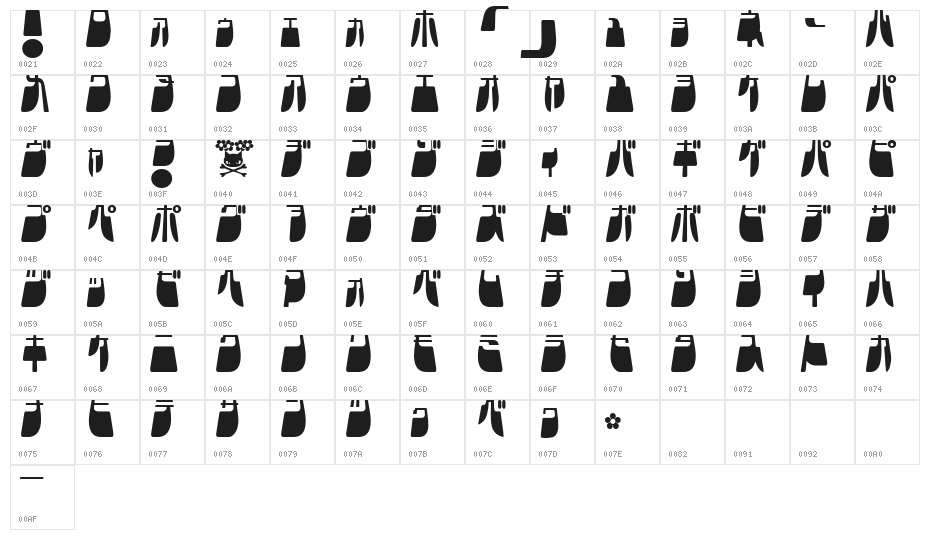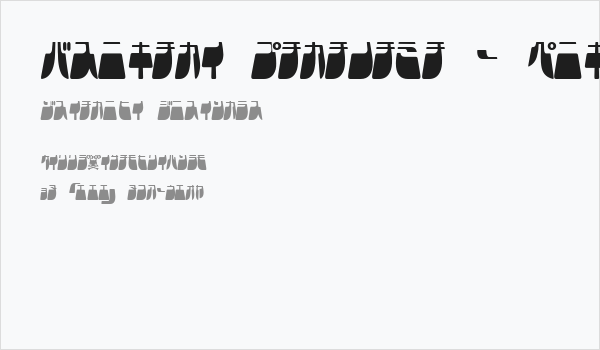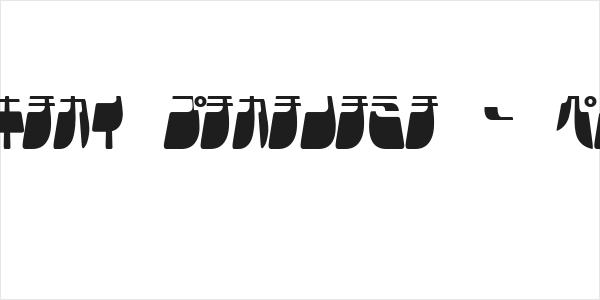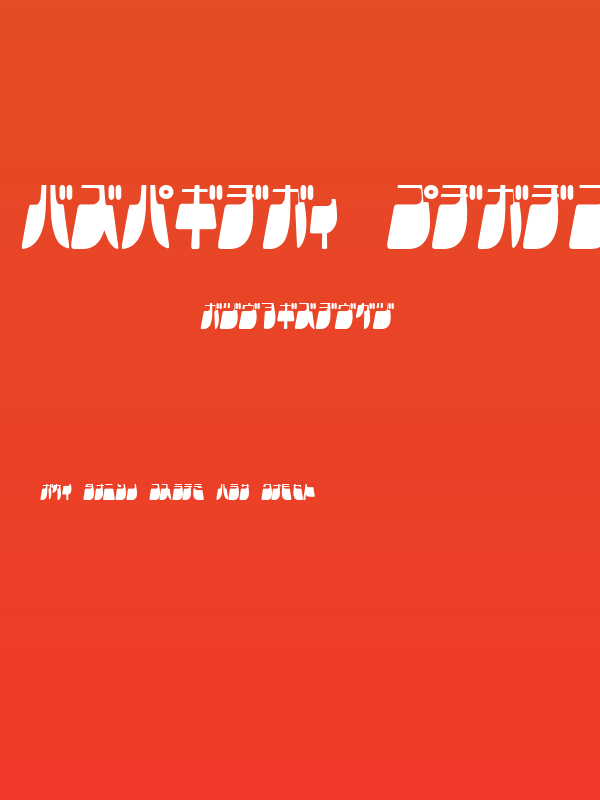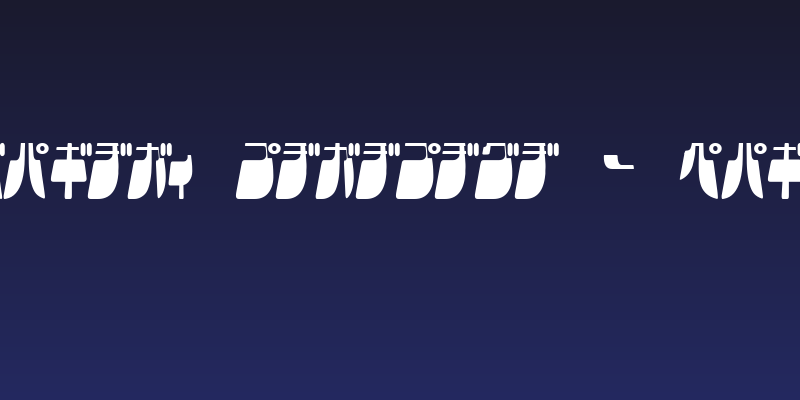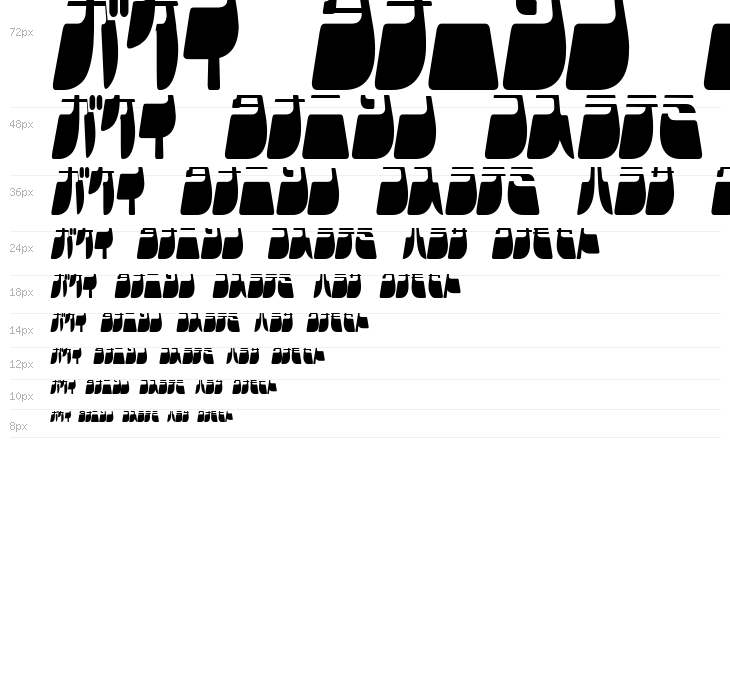
Frigate Katakana - Light Font
Frigate Katakana - Light Description
This font features a bold and modern design with a distinctively heavy weight and strong presence. The characters are wide and have a unique, almost futuristic appearance, with rounded edges and a consistent stroke thickness that gives them a cohesive look. The style is highly decorative, making it stand out in any design project. The font's boldness and unique character shapes make it ideal for attention-grabbing headlines or logos. Its modern aesthetic is perfect for projects that require a contemporary and innovative touch.
| Proposed Projects | Ideal for use in headlines, logos, posters, and any design that requires a modern and eye-catching font. |